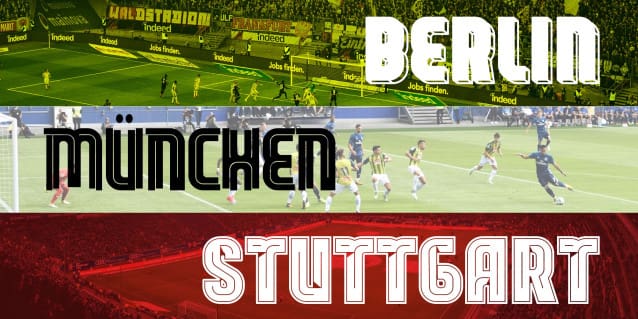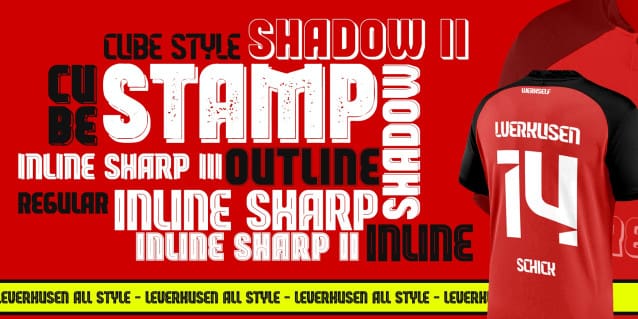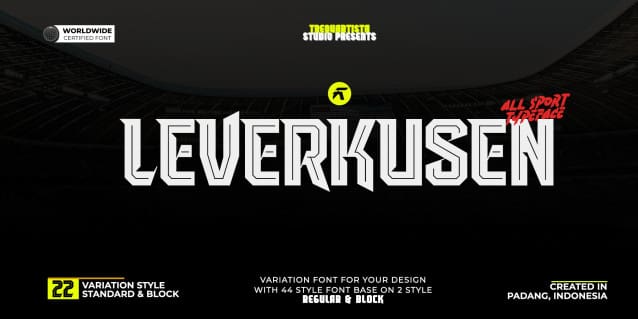
Leverkusen Font
Leverkusen Font is a fearless athletic font family. It’s perfect for sports logos, branding, posters, apparel design with it’s bold and confident appearance. The uppercase characters comes with different renders to add authenticity and a more natural worn look.